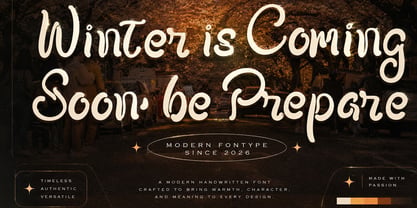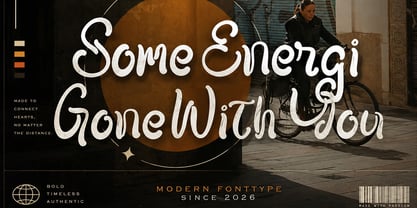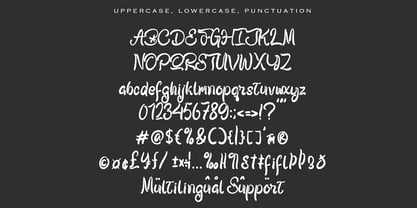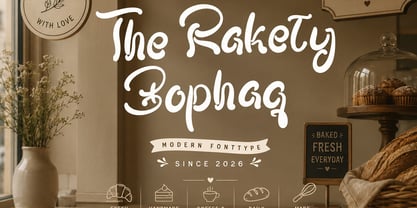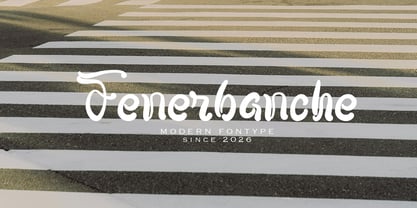
The Rakety Bophaq
by Pineungtype misinklab
The The Rakety Bophaq Font Family was designed by Beni Saswita and published by Pineungtype misinklab. The Rakety Bophaq contains 1 styles. More about this family
The Rokety Bophang is a playful modern script font with a warm handcrafted personality. Featuring smooth curves, bouncy letterforms, and stylish swashes, this typeface brings a cheerful and friendly vibe to any design project. Perfect for bakery branding, café menus, packaging, logos, social media posts, wedding invitations, and whimsical typography designs. Its soft retro-inspired touch and elegant handwritten flow make The Rokety Bophang both charming and highly versatile for creative branding needs.